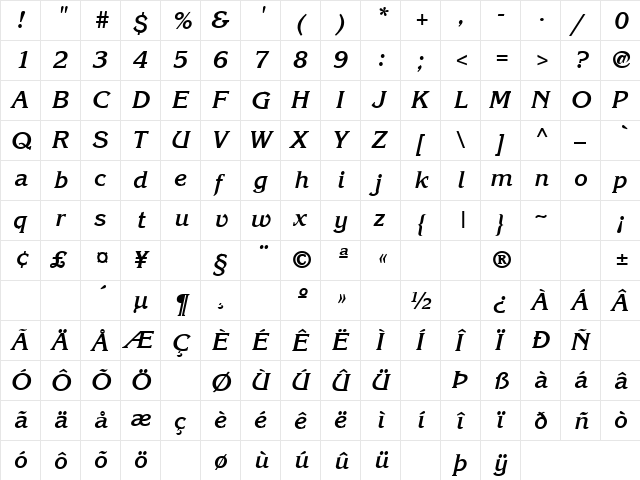
I Wanna Know Why 4 Regular Font Preview
I Wanna Know Why 4 Regular
Design Context for I Wanna Know Why 4 Typeface
I Wanna Know Why 4 takes a measured approach to typography — its balanced proportions and neutral character make it a reliable workhorse for both digital and print work.